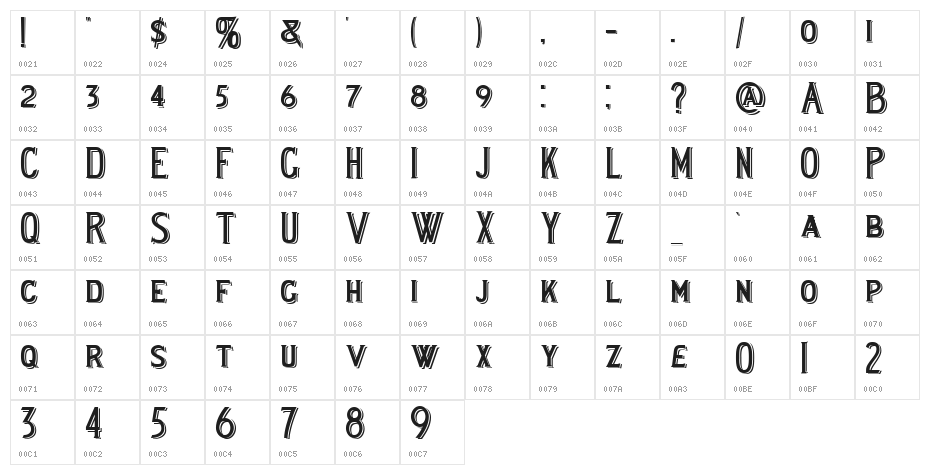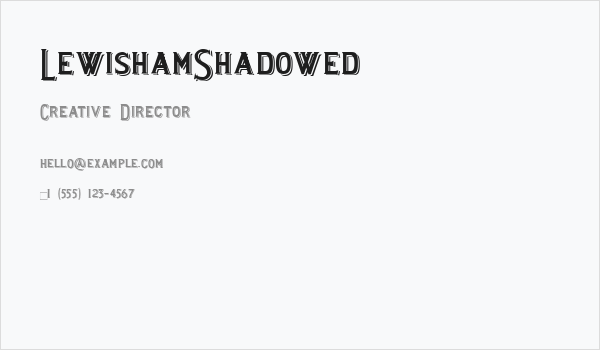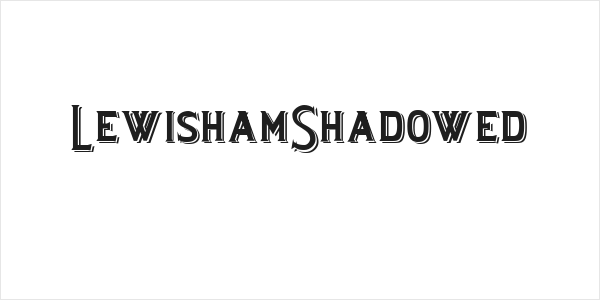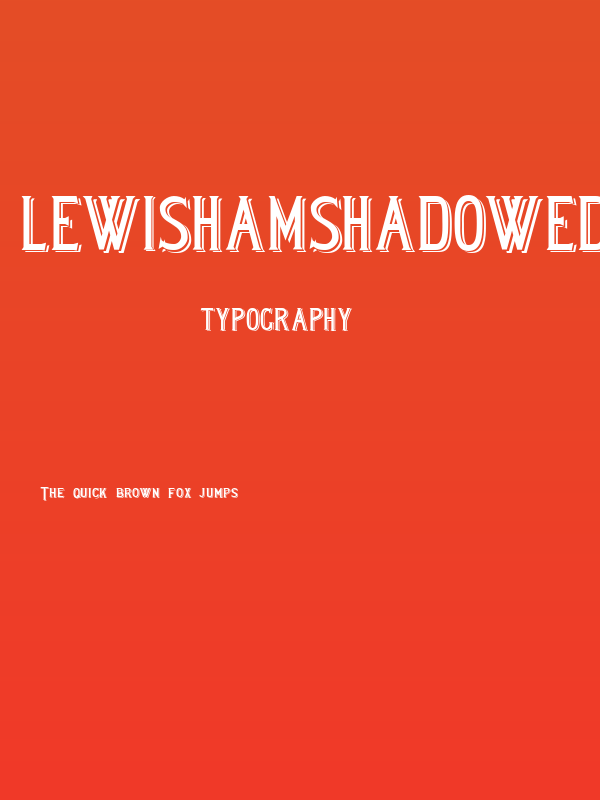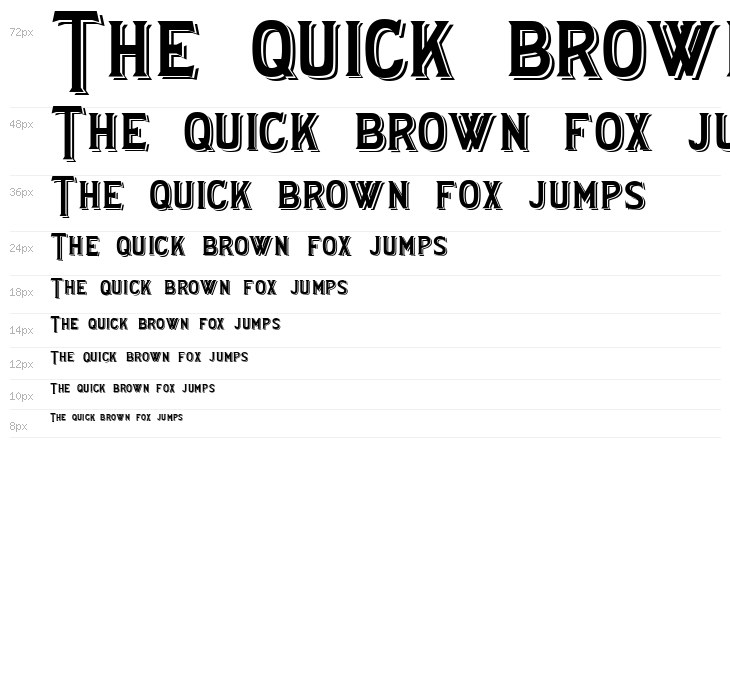
LewishamShadowed Font
LewishamShadowed Description
This font features a bold, shadowed design that gives each character a three-dimensional appearance. The letters are uppercase and lowercase, with numerals and a selection of special characters. The shadow effect adds depth and a sense of movement, making it ideal for eye-catching designs. The strokes are thick, contributing to a strong visual impact. The style is decorative, with a playful yet sophisticated feel. The spacing between characters is normal, ensuring readability while maintaining the font's distinctive style.
| Proposed Projects | Ideal for posters, headlines, logos, and any design requiring a bold statement. |